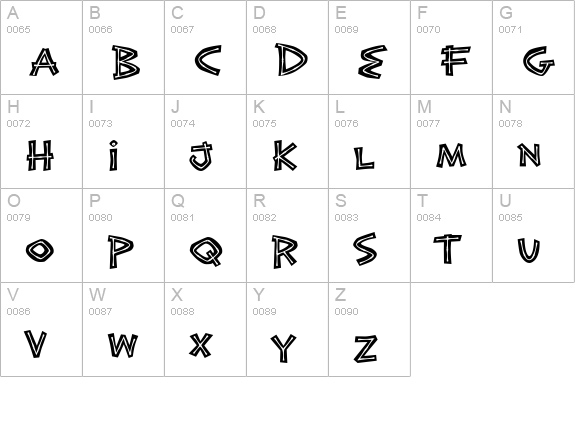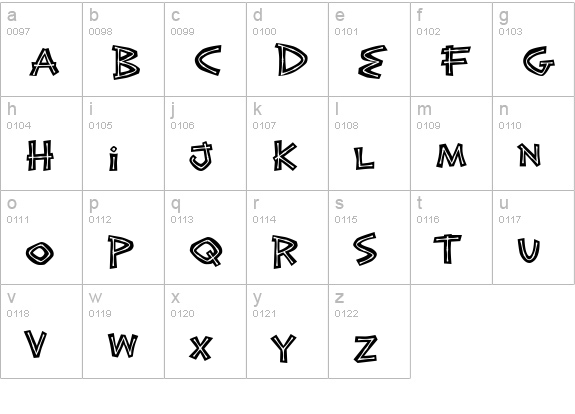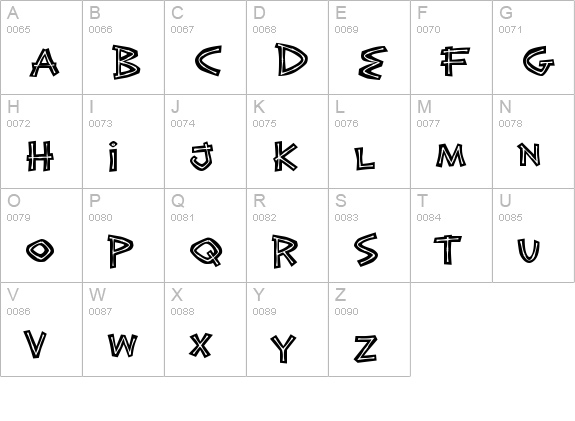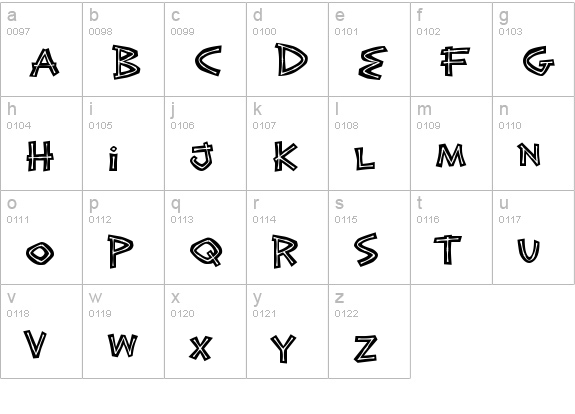
Exotic Island BTN Bamboo Inline Font Details
Introducing the captivating Exotic Island BTN Bamboo Inline font, a stunning display typeface that exudes tropical vibes and exotic charm. This unique font features intricate bamboo-inspired letterforms that add a touch of nature to any design project. Perfect for creating eye-catching headlines, posters, or branding materials, Exotic Island BTN Bamboo Inline will transport your audience to a lush paradise with its organic aesthetic. What's even better is that this striking font is completely free to download at FontsMarket.com. Don't miss out on the opportunity to enhance your creations with the beauty of Exotic Island BTN Bamboo Inline. Download it today and unleash your creativity with this one-of-a-kind typeface!